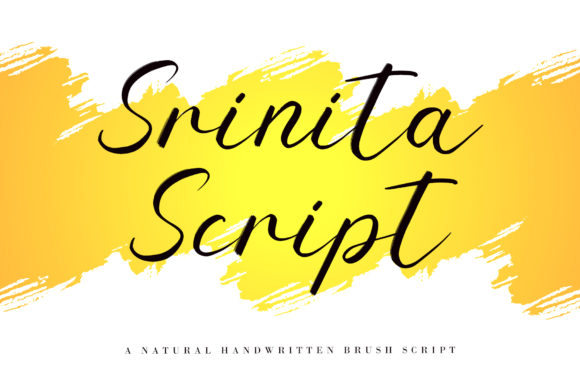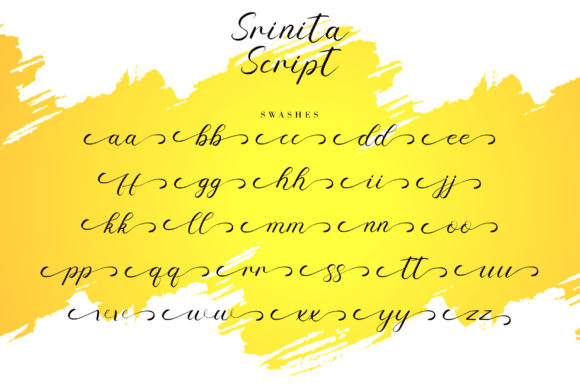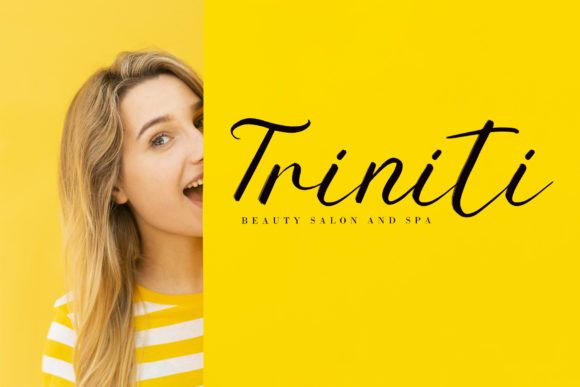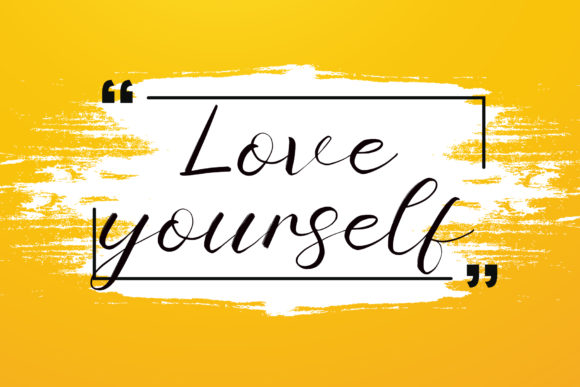
About Srinita Font
Srinita is a classic handwritten font that exudes elegance and sophistication. Whether you’re looking for fonts to use on social media platforms or seeking calligraphy scripts for your DIY projects, Srinita is a versatile font that will elevate your creative ideas and transform them into true works of art.
The timeless appeal of Srinita lies in its classic handwritten style. The carefully crafted letterforms exude a sense of grace and beauty, making it suitable for a wide range of design purposes. Whether you’re creating social media graphics, logos, branding materials, invitations, or any other creative project, Srinita will add a touch of elegance and refinement.
One of the notable features of Srinita is its PUA encoding. This means that all of the glyphs and swashes in the font can be easily accessed, allowing you to add unique flourishes and decorative elements to your designs. The PUA encoding opens up a world of creative possibilities, enabling you to customize and personalize your typography effortlessly.
Srinita’s versatility is another key aspect that makes it a valuable asset for any designer. It can be used for both formal and informal designs, making it suitable for a wide range of applications. Whether you’re aiming for a professional and polished look or a more casual and playful vibe, Srinita can adapt to your design needs.
The clean and legible nature of Srinita ensures that your message is conveyed with clarity and style. The even strokes and balanced letterforms create a harmonious flow, making it easy to read and visually pleasing. This makes Srinita an excellent choice for both display text and body copy, providing consistency and coherence across your design projects.
In summary, Srinita is a classic handwritten font that offers elegance, versatility, and ease of use. Its timeless appeal makes it suitable for a wide range of design projects, and its PUA encoding provides access to a variety of glyphs and swashes for customization. Whether you’re creating social media graphics or calligraphy-inspired DIY projects, Srinita will bring a touch of artistry and sophistication to your designs.